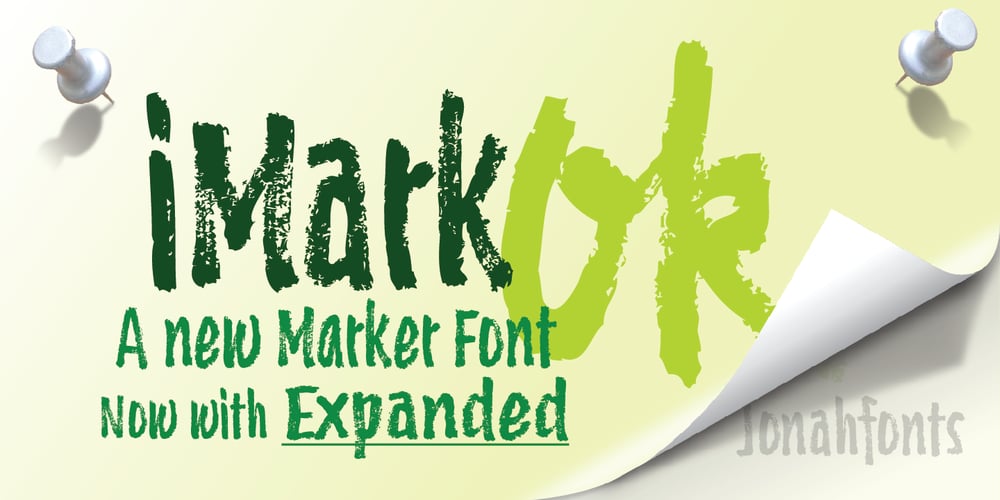
iMark
iMark font
iMark Font Family was designed by John Nahmias and published by Jonahfonts. iMark contains 2 styles and family package options. IMark is a “drying” marker hand written, felt tip pen font. Usage recommendations include captions, packaging, invitations, cards, posters, ads, greeting cards, book jackets and covers.